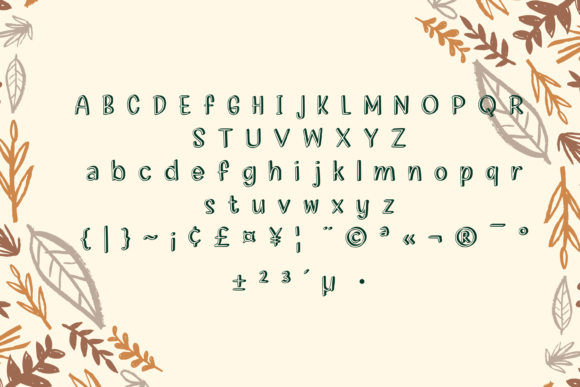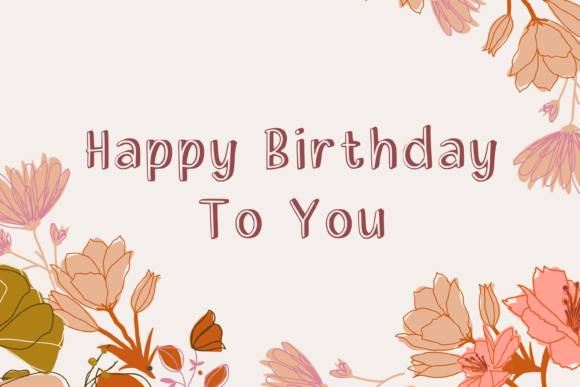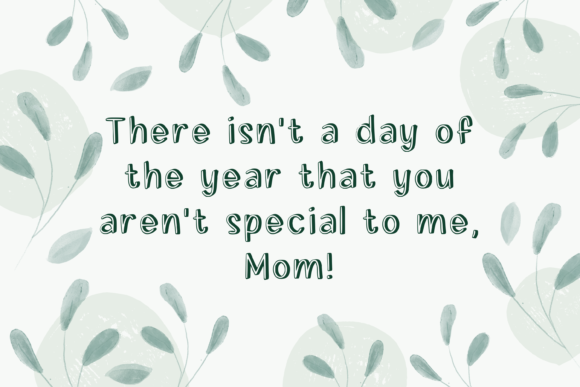
Bae Pumpkin Font: The Ultimate Display Font for Creative Projects
Are you tired of using the same old fonts for your creative projects? Look no further than Bae Pumpkin Font, a cool and casual display font that’s sure to elevate your designs. Whether you’re a designer, crafter, or simply someone who loves to get creative, Bae Pumpkin Font is an incredibly versatile addition to your font library.
What is Bae Pumpkin Font?
Bae Pumpkin Font is a unique and eye-catching display font that’s perfect for a wide range of creative projects. Its casual, laid-back vibe makes it ideal for designs that require a friendly and approachable feel. From Halloween-themed crafts to autumnal decorations, Bae Pumpkin Font is the perfect choice for anyone looking to add a touch of whimsy to their work.
Key Features of Bae Pumpkin Font
- Cool and Casual Design: Bae Pumpkin Font boasts a fun and relaxed design that’s perfect for creative projects that require a friendly and approachable feel.
- Versatile: This font is incredibly versatile and can be used for a wide range of projects, from Halloween-themed crafts to autumnal decorations.
- Easy to Read: Despite its playful design, Bae Pumpkin Font is easy to read, making it perfect for use in titles, headings, and other display text.
- High-Quality: Bae Pumpkin Font is a high-quality font that’s designed to deliver crisp, clear results, even at large sizes.
Uses for Bae Pumpkin Font
Bae Pumpkin Font is perfect for a wide range of creative projects, including:
- Halloween-themed Crafts: Bae Pumpkin Font is perfect for Halloween-themed crafts, such as party invitations, decorations, and DIY projects.
- Autumnal Decorations: The font’s autumnal feel makes it perfect for use in decorations, such as Thanksgiving cards and fall-themed party invitations.
- Signage: Bae Pumpkin Font is a great choice for signage, such as store signs, event signs, and directional signs.
- Digital Designs: The font is also perfect for use in digital designs, such as social media graphics, blog posts, and website headers.
Why Choose Bae Pumpkin Font?
So why choose Bae Pumpkin Font over other display fonts? Here are just a few reasons:
- Unique Design: Bae Pumpkin Font boasts a unique and eye-catching design that’s sure to stand out from the crowd.
- Easy to Use: The font is incredibly easy to use, even for those with limited design experience.
- Highly Versatile: Bae Pumpkin Font can be used for a wide range of projects, making it a great addition to any font library.
Tips for Using Bae Pumpkin Font
Here are a few tips for getting the most out of Bae Pumpkin Font:
- Use it as a Display Font: Bae Pumpkin Font is perfect for use as a display font, such as in titles, headings, and other display text.
- Pair it with Other Fonts: The font pairs well with other fonts, such as sans-serif fonts and script fonts.
- Experiment with Colors: Bae Pumpkin Font looks great in a wide range of colors, so don’t be afraid to experiment and find the perfect color for your project.
In conclusion, Bae Pumpkin Font is a cool and casual display font that’s perfect for a wide range of creative projects. Its unique design, versatility, and ease of use make it an incredibly asset to your font library. Whether you’re a designer, crafter, or simply someone who loves to get creative, Bae Pumpkin Font is sure to elevate your designs and help you stand out from the crowd.